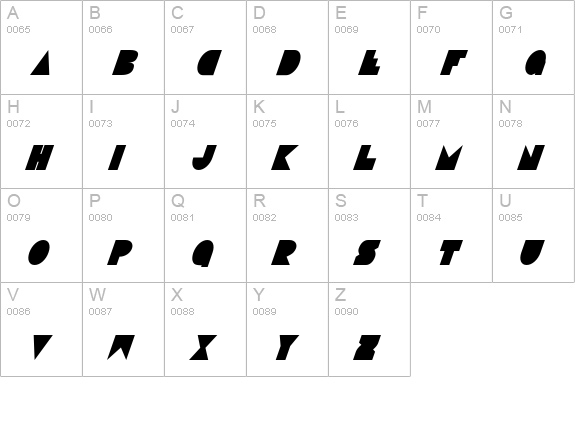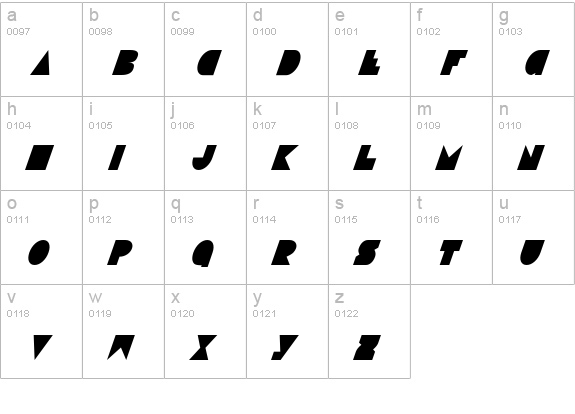
Disco Deck Condensed Italic is a distinctive, condensed-width, italic variant in the Disco typeface family \xE2\x80\x94 well suited to design and typography projects.
Disco Deck Condensed Italic font is a stylish and energetic typeface that perfectly captures the essence of the disco era. Its slanted design adds a touch of movement and excitement to any text, making it ideal for party invitations, event posters, and dance club flyers. The sleek and condensed letterforms give a modern twist to the retro-inspired design, creating a unique and eye-catching look. Best of all, Disco Deck Condensed Italic font is available for free download at FontsMarket.com. Whether you're a designer looking to add a funky flair to your projects or a party planner in need of a groovy font, this typeface is sure to make a statement. Don't miss out on the opportunity to bring some disco fever to your next creative endeavor with this freely accessible font.